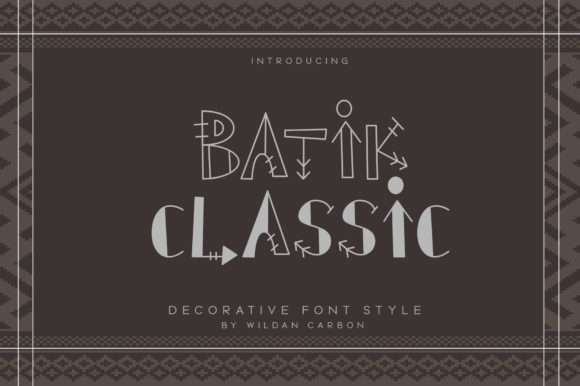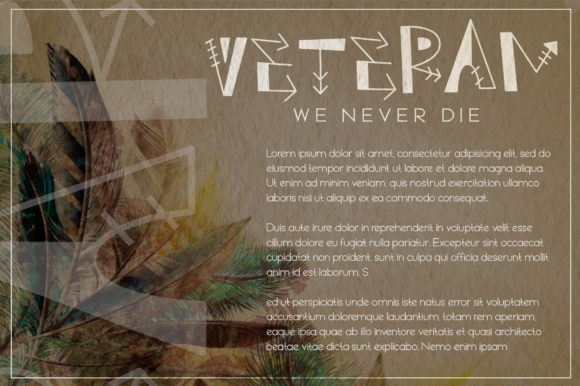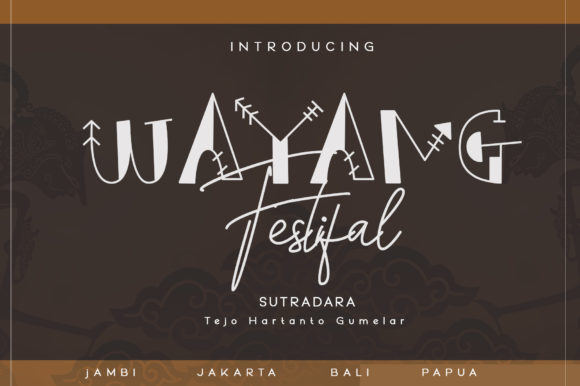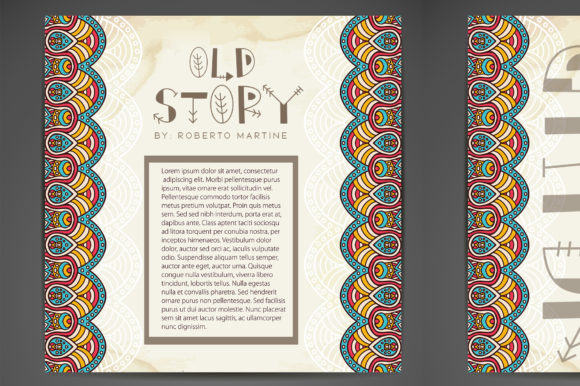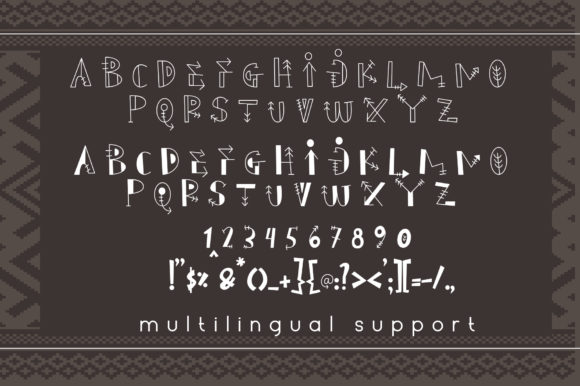
Batik Classic is a cool and incredibly unique decorative font. No matter the topic, this font will be an incredibly asset to your fonts’ library, as it has the potential to elevate any creation.